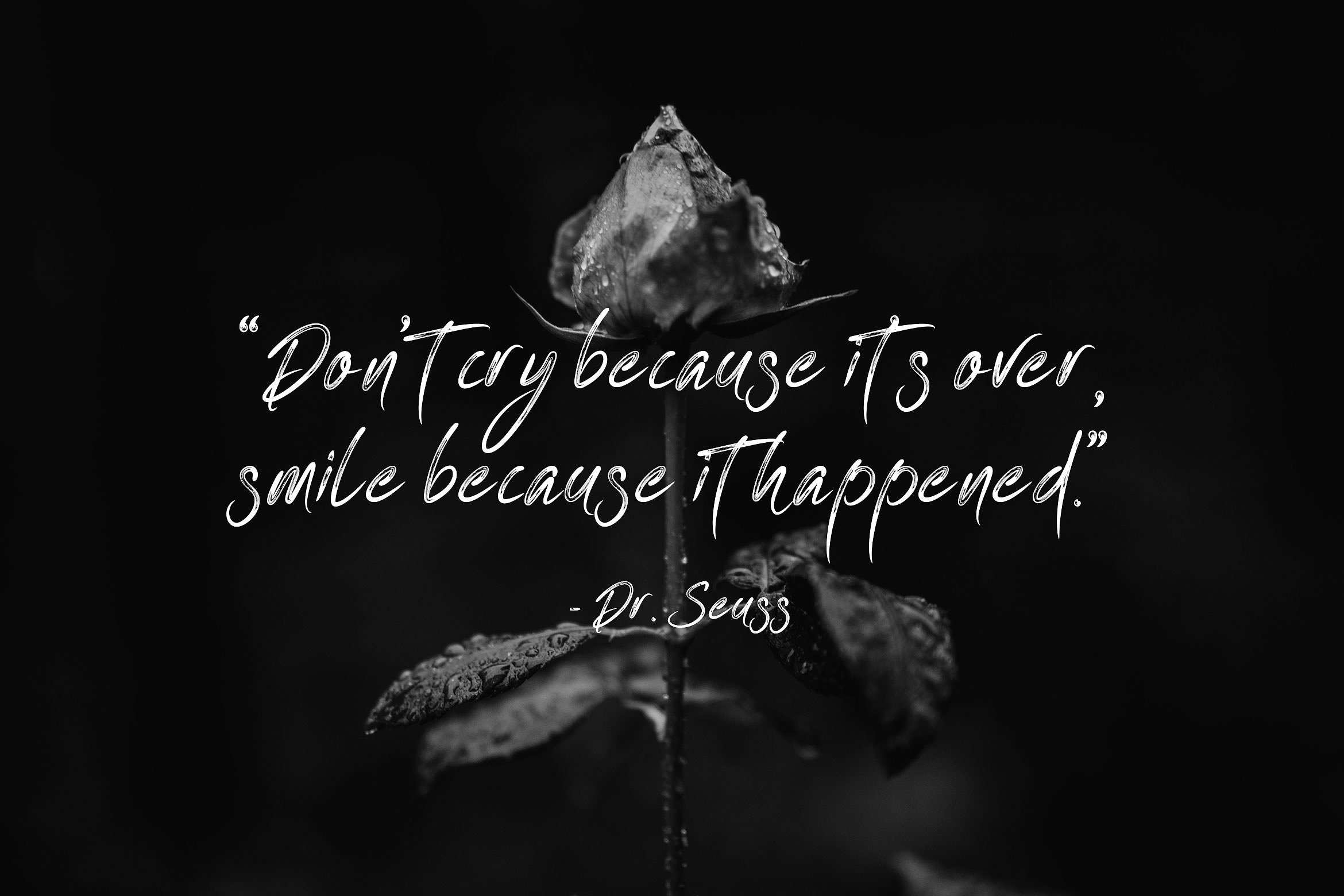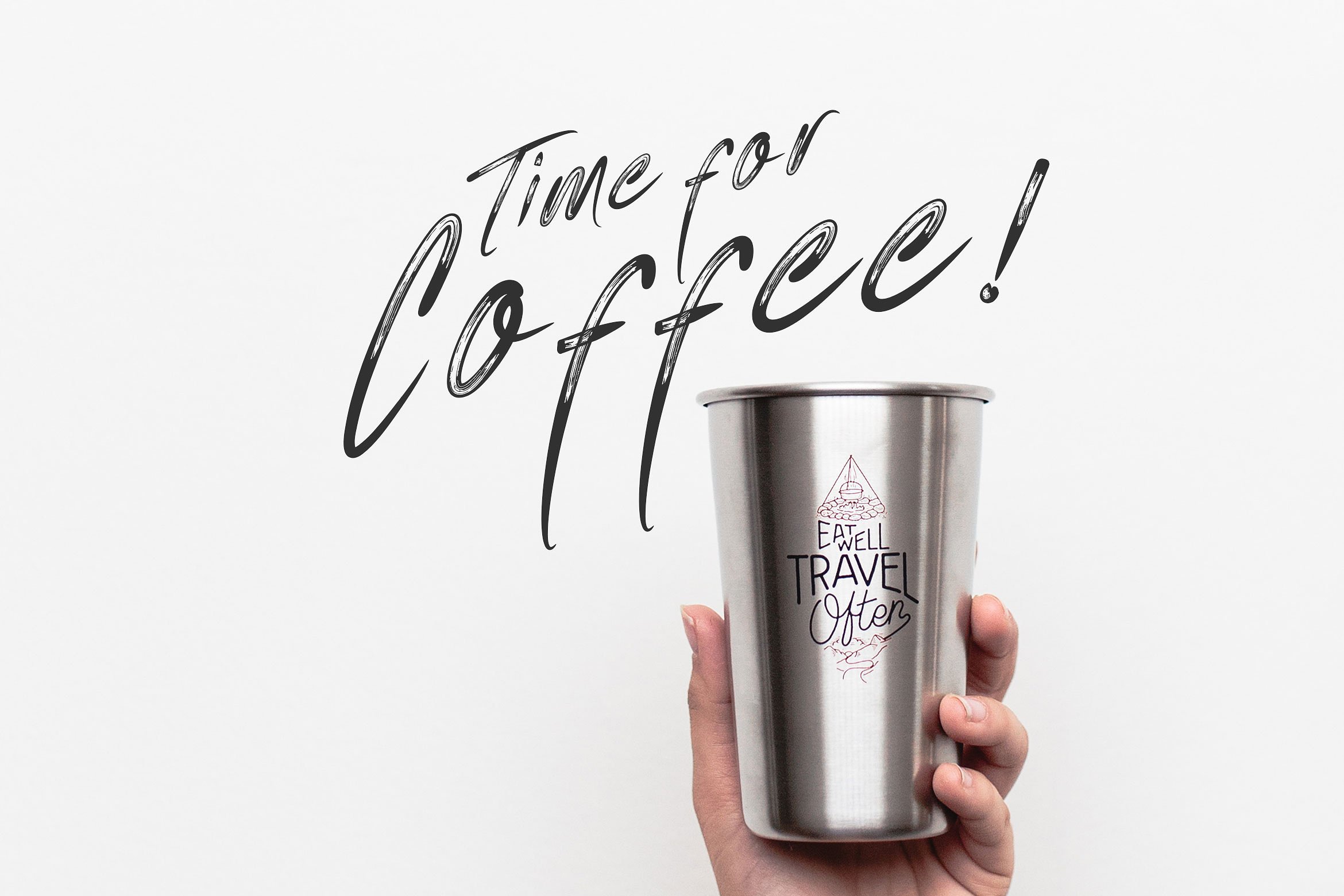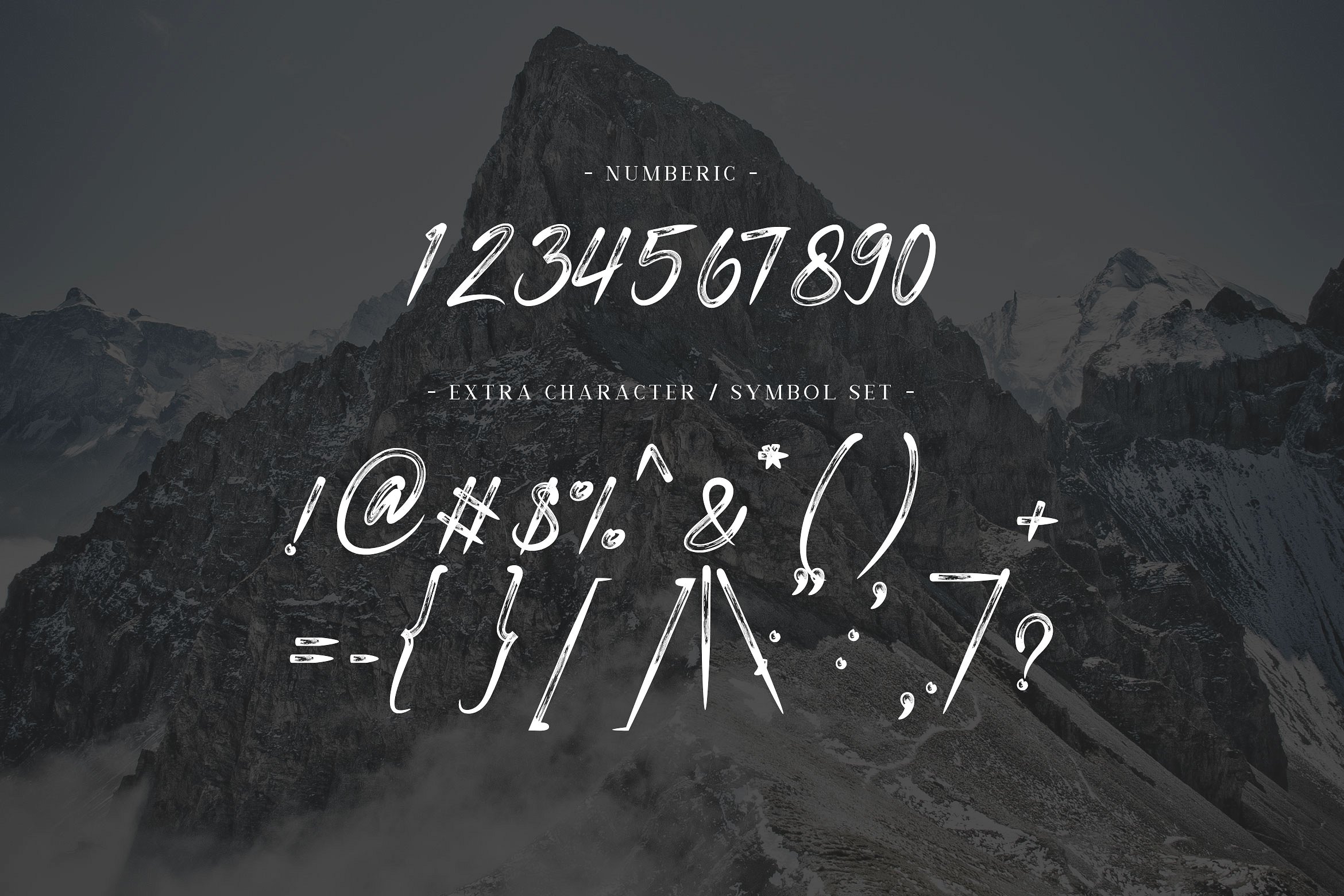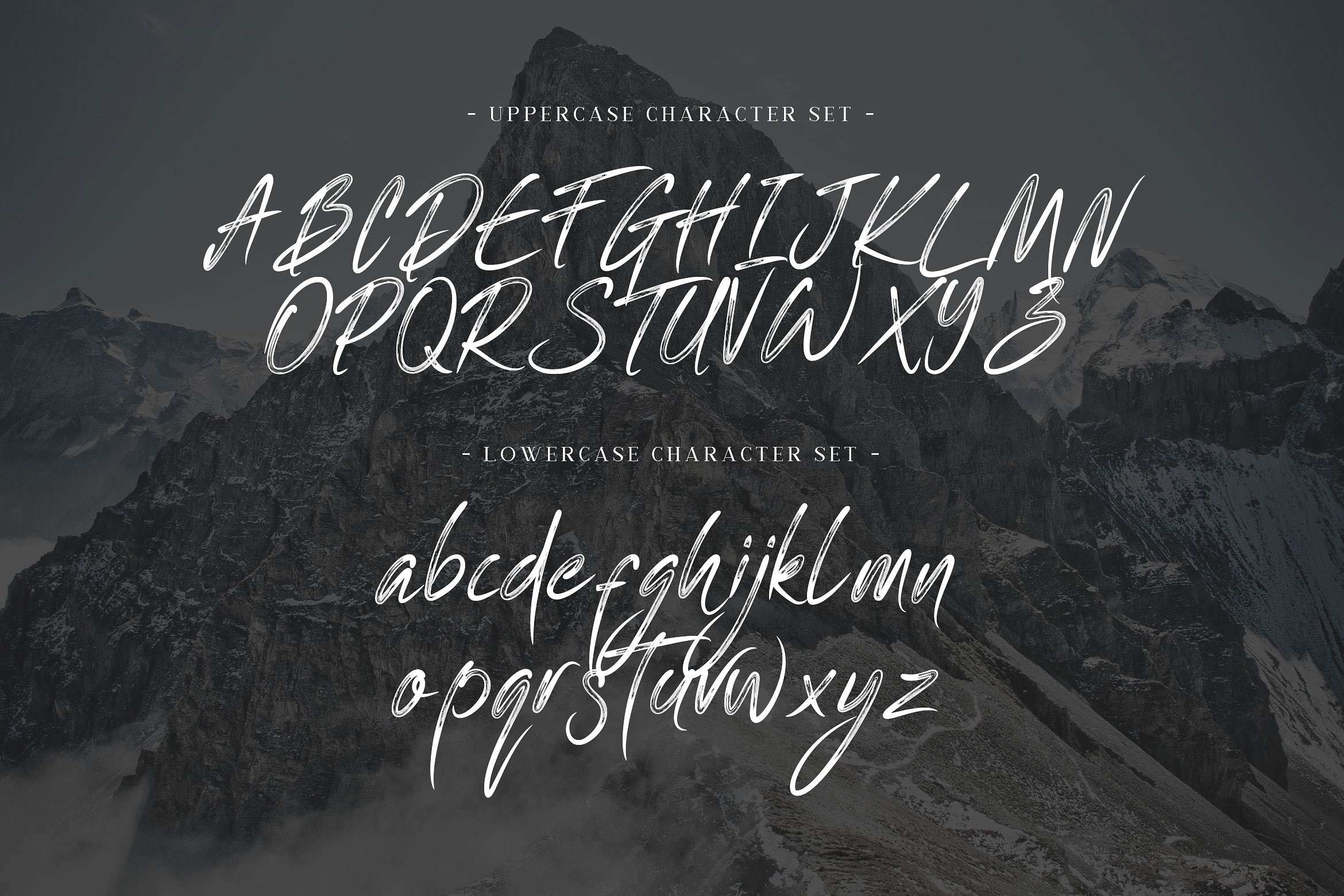
One Piece Brush Font
A handmade brush script font. Introducing One Piece Font. One Piece is a brush script typeface. It has a elegant, classy look, catchy, readable and cool. This font is perfect for giving your branding projects, font for fashion, apparel projects, and goth vibe, but also works great for other projects like posters, packaging, advertising, headlines, social media, branding, signage and anything where you want that urban look and feel.